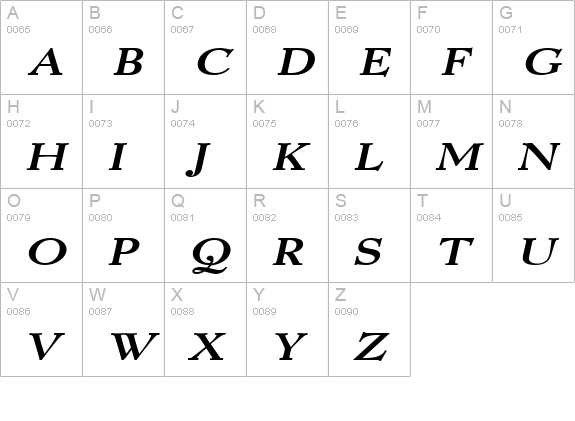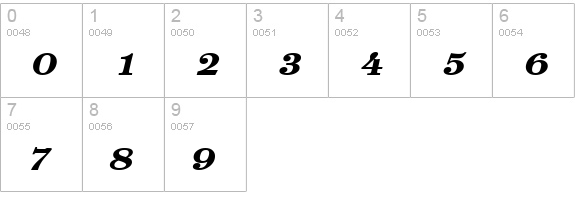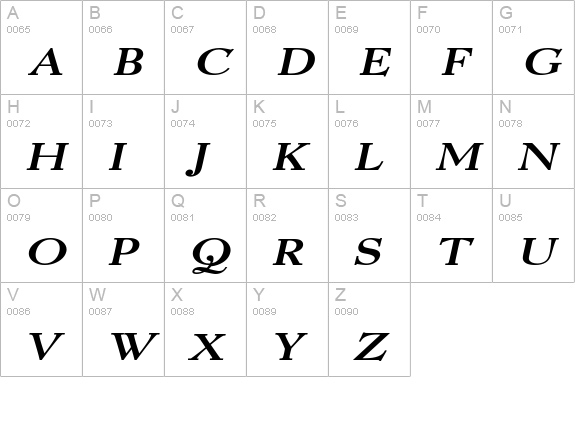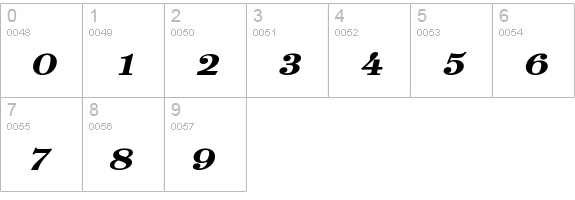
Luciano Wide BoldItalic is a distinctive, extended-width variant in the Luciano typeface family \xE2\x80\x94 well suited to design and typography projects.
The Luciano Wide BoldItalic font is a striking and modern typeface that exudes confidence and style. Its bold and italic design adds a touch of sophistication to any project, making it perfect for headlines, titles, and branding materials. The wide letterforms of this font make a strong visual impact, while its bold strokes command attention on the page. This versatile font is ideal for a variety of design projects, from posters and flyers to logos and website headers. Its bold and italic styling creates a sense of drama and flair, making it a standout choice for any creative endeavor. Whether you're looking to make a bold statement or add a touch of elegance to your designs, the Luciano Wide BoldItalic font is sure to impress. Best of all, the Luciano Wide BoldItalic font is completely free to download at FontsMarket.com. This means you can access this stylish and eye-catching font without any cost, making it a valuable addition to your font library. Don't miss out on the opportunity to elevate your designs with the Luciano Wide BoldItalic font - download it today and start creating stunning visuals that demand attention.